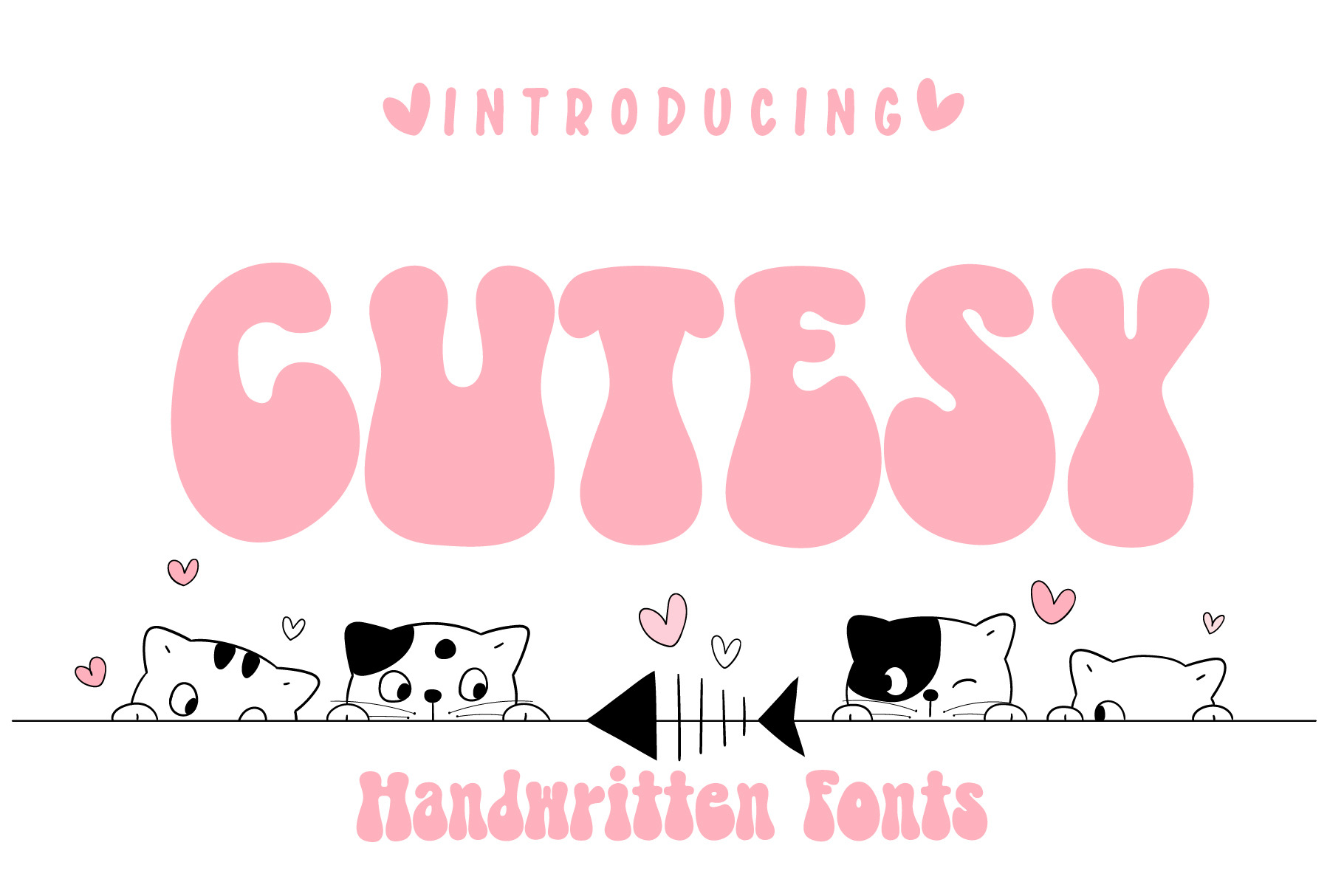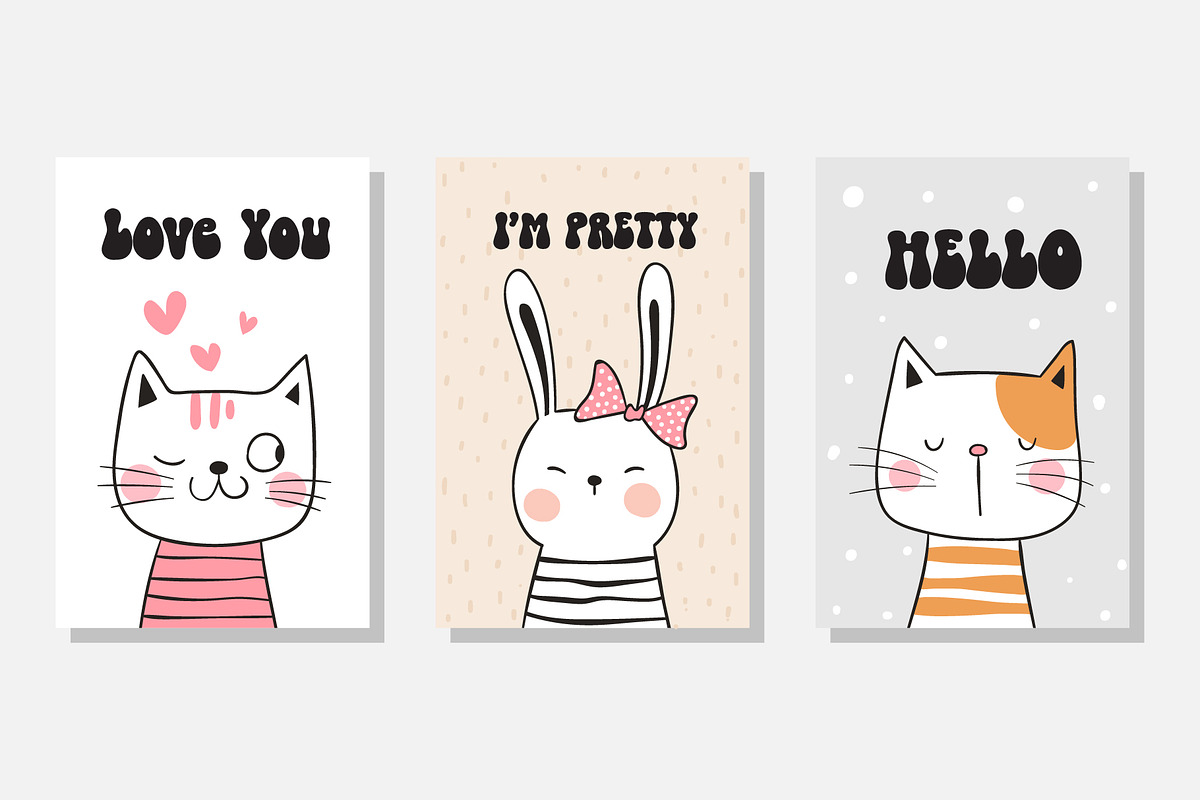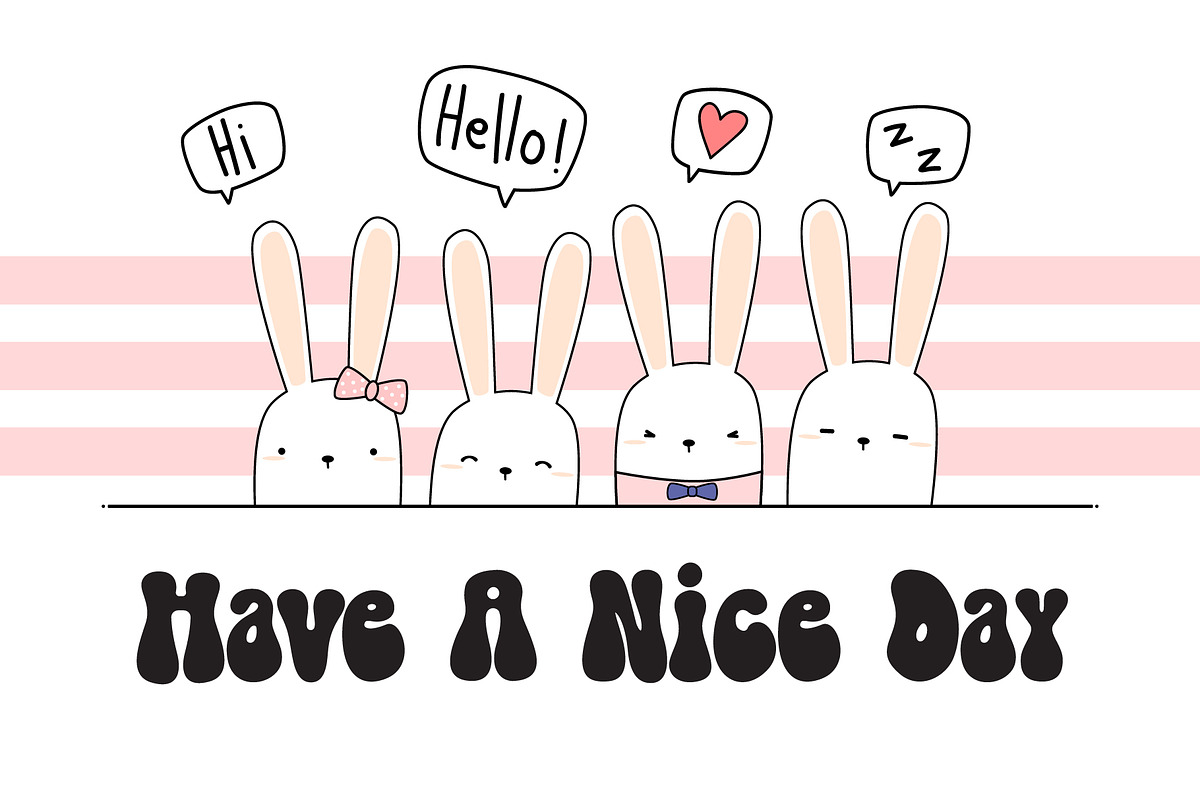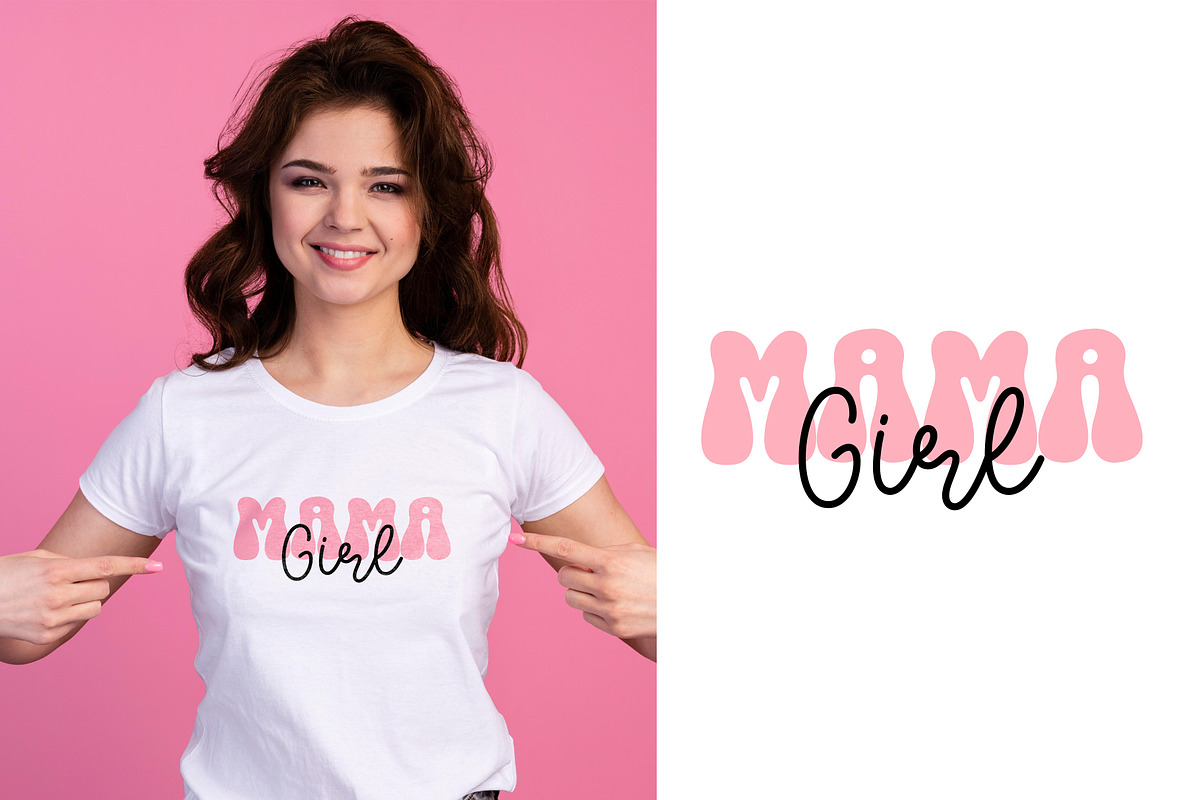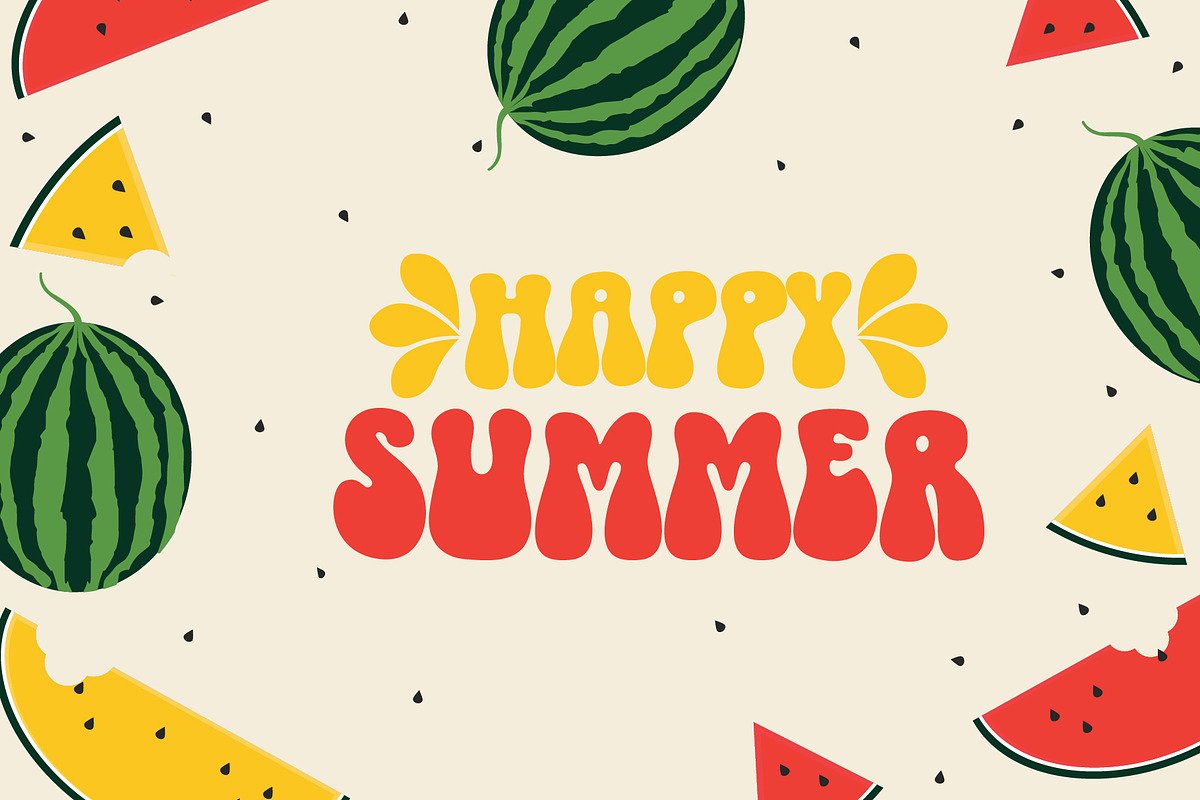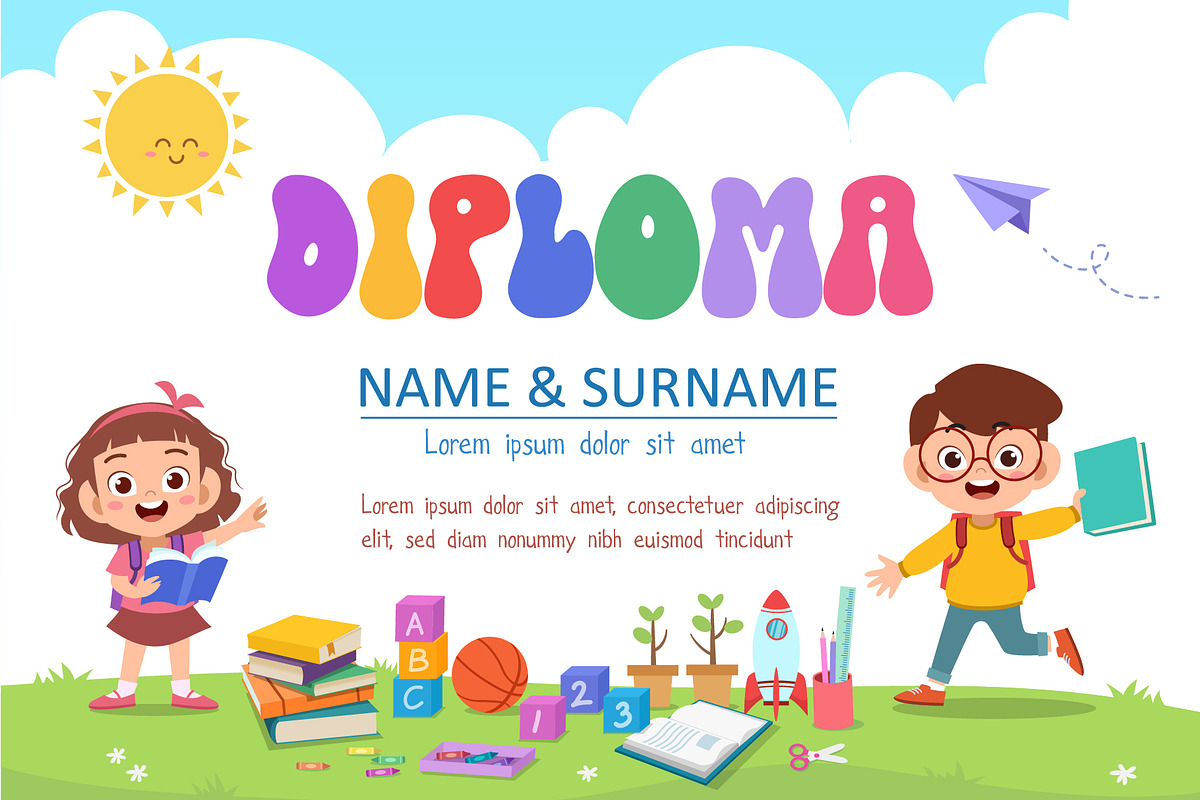
Cutesy Fonts
Cutesy is a display font that are beautiful, cute, and naughty, suitable for a variety of tasks. It can easily be matched to an incredibly large set of projects, so add it to your creative ideas and notice how it makes them stand out!